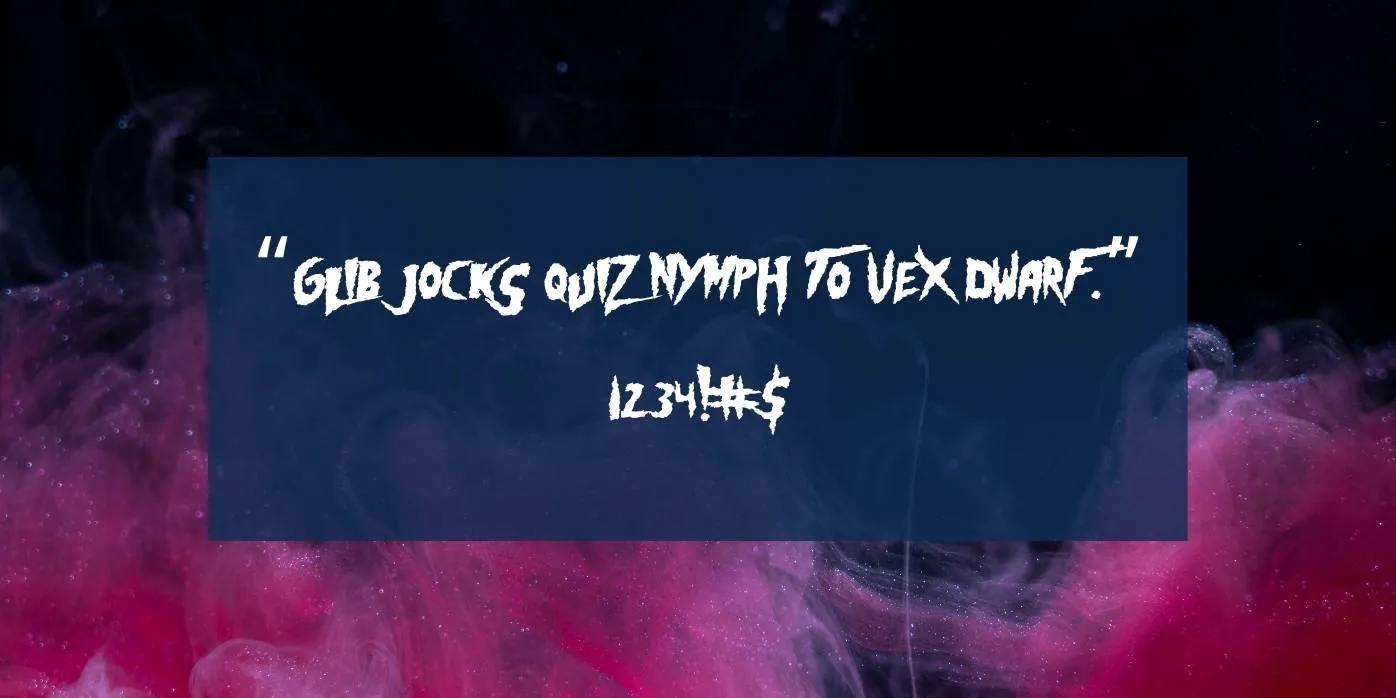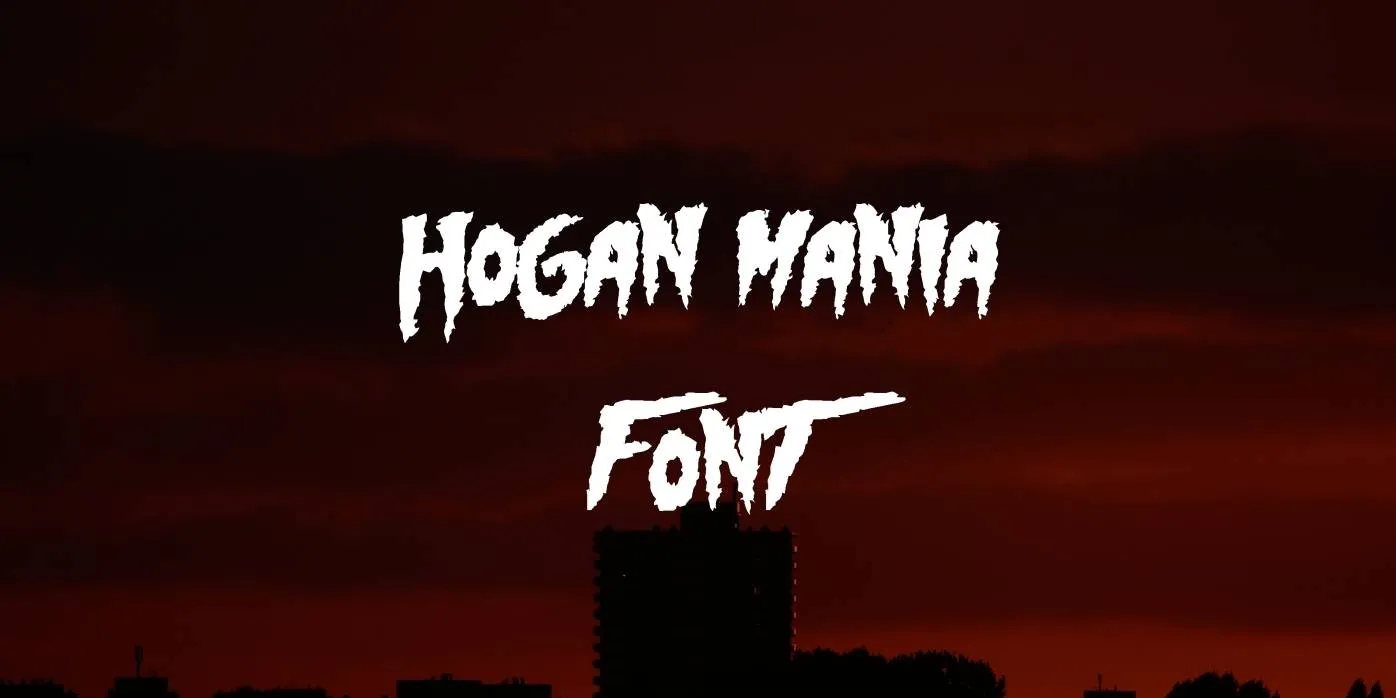
Hogan Mania Font
Hogan Mania Font was designed and shared by Jayde Garrow. This stylish family belongs to the Brush fonts family.  The design of this font was influenced by the typefaces who has horror designs. It makes it a great choice for vintage and retro designs. This awesome font is perfect for a variety of design purposes.
It comes in two styles including regular and bold. Each style has its own unique character set. The regular style includes upper and lowercase letters, numbers, and punctuation marks. The bold style includes only uppercase letters.